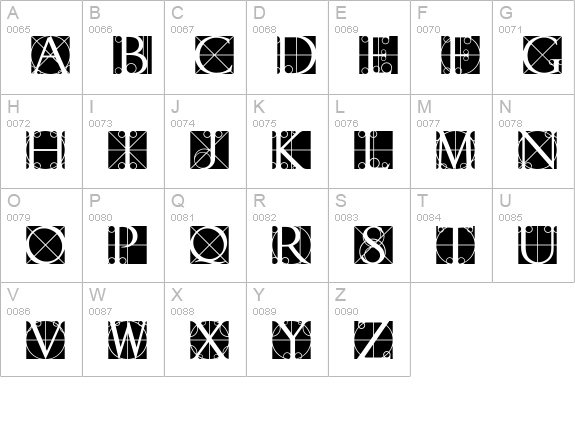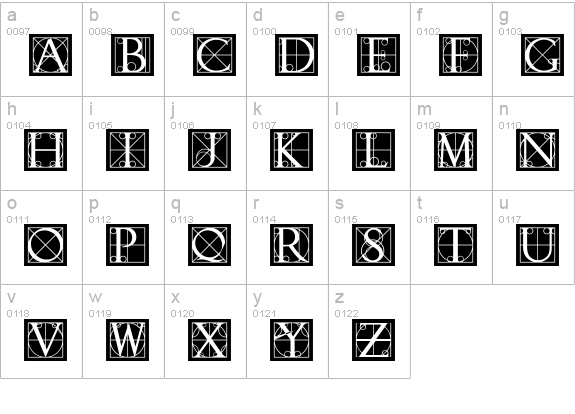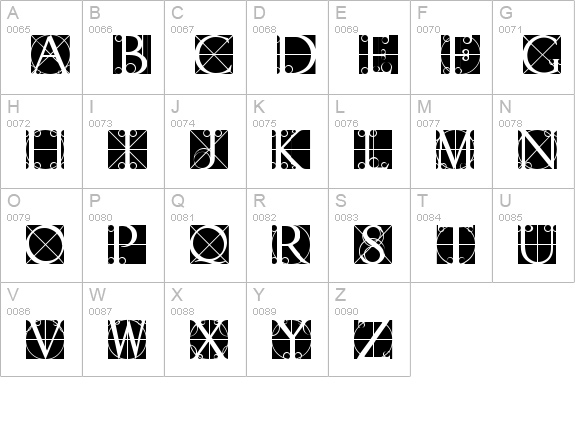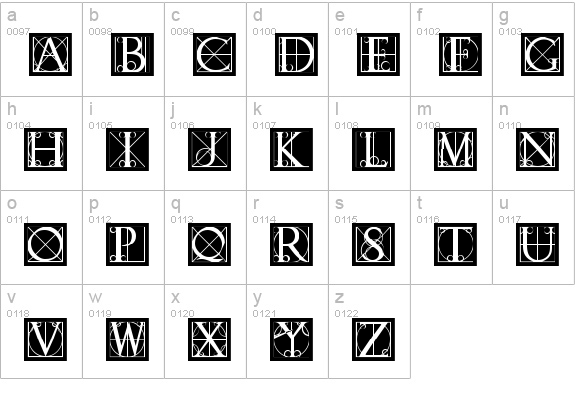
RodgauerOne Font Details
RodgauerOne font is a whimsical and playful typeface that exudes a sense of creativity and fun. With its unique blend of smooth curves and sharp edges, this font is perfect for adding a touch of personality to any design project. The quirky letterforms of RodgauerOne font make it ideal for headlines, logos, and branding materials that aim to stand out from the crowd. What makes RodgauerOne font even more appealing is that it is available for free download at FontsMarket.com. This means that you can easily access this charming font and incorporate it into your creative projects without any cost. Whether you're working on a poster, website, or social media graphic, RodgauerOne font is sure to bring a sense of whimsy and charm to your designs. Download it today and let your creativity shine with this delightful typeface.